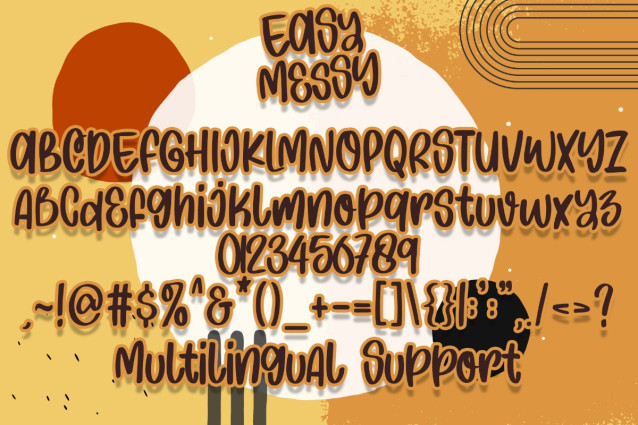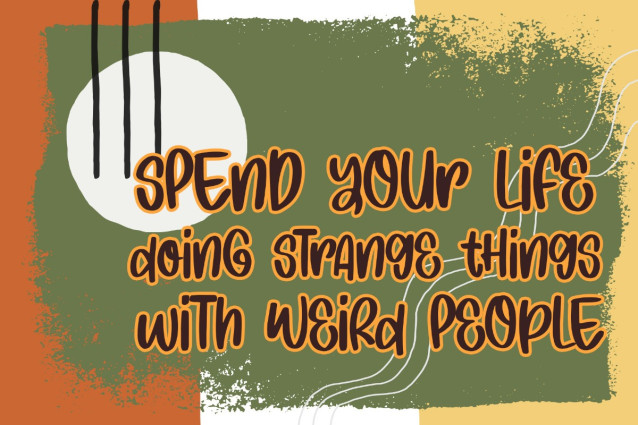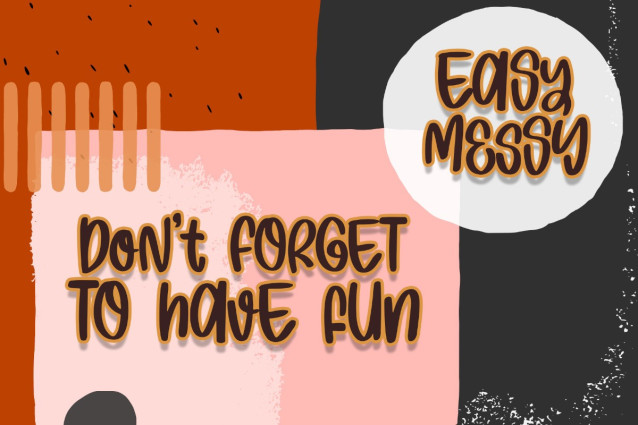
Easy Messy Font
Easy Messy Font is a versatile and casual typeface that brings a delightful touch of informality and creativity to your design projects. Its playful and imperfect letterforms add character, making it an excellent choice for a wide range of applications, from branding to social media graphics.